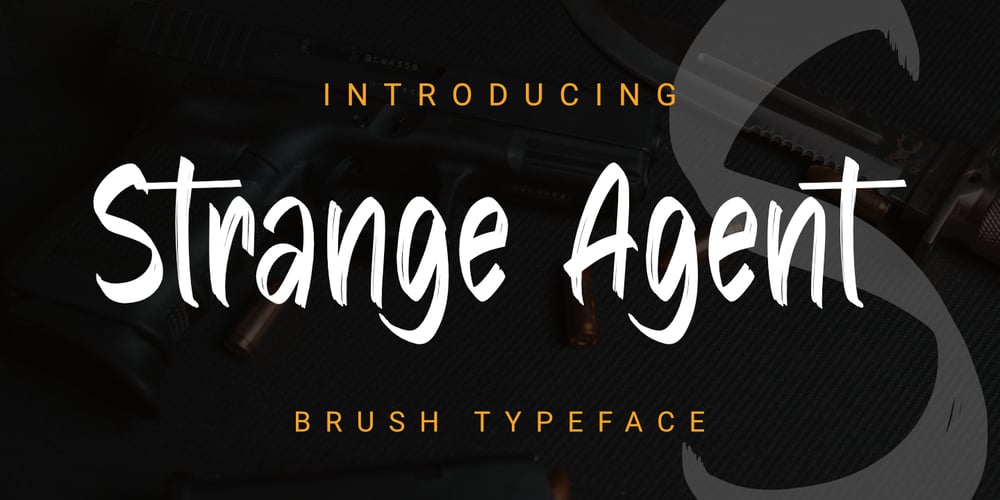
Strange Agent
Strange Agent font
Strange Agent Font Family was designed by Toni Dzulham and published by Dumadi. Strange Agent contains 1 styles and family package options. Strange Agent – Casual Brush is a font that goes well with procreate a relaxed, fun and friendly atmosphere.Strange Agent perfect for designs, logos, social media, brands, content, advertisements, product designs, quotes, product packaging, headers, posters, merchandise, and other designs.What’s Included :+ Standard glyphs+ Ligature+ Web Font+ Multilingual Accent+ Works on PC & Mac, Simple installationsAccessible in Adobe Illustrator, Adobe Photoshop, Adobe InDesign, even work on Microsoft Word. PUA Encoded Characters – Fully accessible without additional design software. Fonts include multilingual support+ Image used: All photographs/pictures/vectors used in the preview are not included, they are intended for illustration purposes only.Thanks